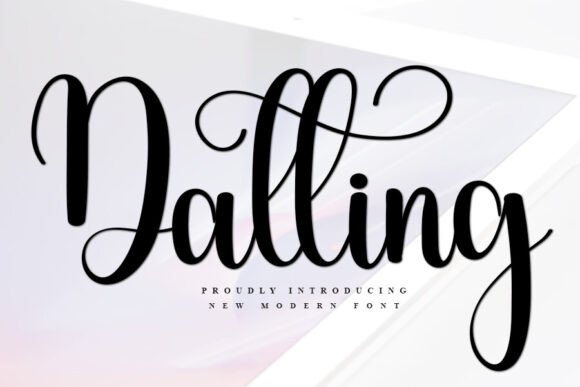
Datting Font: Elevate Your Designs with a Refreshingly Modern Aesthetic
In the realm of design, typography plays a pivotal role in conveying messages, evoking emotions, and creating lasting impressions. The right font can elevate your design from ordinary to extraordinary, making it essential to choose a typeface that not only resonates with your brand’s identity but also captivates your audience. Introducing Datting, a refreshingly modern and aesthetically pleasing font designed to meet a wide array of design requirements. Whether you’re creating YouTube banners, logo mock-up covers, wedding invitations, professional ID cards, impactful flyers, or engaging in creative crafts, Datting emerges as your go-to choice.
The Versatility of Datting Font
Datting is not just another font; it’s a design companion that brings versatility to the table. Its clean lines, elegant curves, and modern appeal make it an ideal choice for various applications. Here are some of the areas where Datting truly shines:
- YouTube Banners: Stand out in the crowded YouTube space with a banner that exudes professionalism and creativity. Datting helps you create a strong first impression, drawing viewers into your content.
- Logo Mock-up Covers: A logo is often the first thing people notice about a brand. With Datting, you can craft logos that are not only visually appealing but also convey the essence of your brand.
- Wedding Invitations: Make your wedding invitations unforgettable with Datting’s elegant and sophisticated feel. It’s perfect for creating idyllic and romantic announcements.
- Professional ID Cards: For businesses and organizations, ID cards are essential for identification and security. Datting offers a professional look that enhances the credibility of your ID cards.
- Impactful Flyers: Whether you’re promoting an event, a product, or a service, Datting helps you create flyers that capture attention and drive engagement.
- Creative Crafts: For crafters and DIY enthusiasts, Datting provides a modern touch to handmade projects, making them stand out.
Aesthetic Upgrade and Business Progression
In today’s competitive market, aesthetics play a crucial role in brand differentiation and progression. Datting is more than just a font; it’s a tool for business growth. By incorporating Datting into your designs, you’re not only enhancing their visual appeal but also paving the way for:
- Enhanced Brand Recognition: Consistent and appealing visual branding helps in building a strong brand identity, making your business more recognizable to your target audience.
- Increased Engagement: Designs made with Datting are not only pleasing to the eye but also engaging, encouraging your audience to interact more with your content.
- Professionalism: The modern and clean look of Datting adds a layer of professionalism to your designs, which is crucial for attracting and retaining clients.
- Competitive Edge: In a sea of generic and outdated fonts, Datting gives you a unique edge, setting your designs apart from the competition.
The Simplicity and Exclusivity of Datting
What sets Datting apart from other fonts is its simplicity and exclusivity. In an era where complexity often overshadows elegance, Datting strikes the perfect balance:
- Simplicity: Datting’s clean and straightforward design makes it incredibly versatile and easy to use across various platforms and applications.
- Exclusivity: With Datting, you get a unique typographic experience that injects a fresh flair into every conceptual design. Its distinctiveness ensures your work stands out, avoiding the generic look that common fonts often result in.
Datting is more than just a font; it’s a design revolution. Its modern aesthetic, versatility, and exclusivity make it an indispensable tool for designers and businesses looking to elevate their brand and create impactful designs. Whether you’re aiming for aesthetic upgrades, business progression, or simply looking for a font that brings a unique touch to your creative projects, Datting is the perfect choice. Embrace Datting today and transform your designs with its refreshingly modern appeal.
- What makes Datting suitable for various design projects?
- Datting’s versatility, clean lines, and modern appeal make it suitable for a wide range of projects, from digital applications like YouTube banners to print materials such as flyers and wedding invitations.
- Is Datting easy to read?
- Absolutely. One of the key features of Datting is its readability. Its clean and simple design ensures that it remains legible across various sizes and applications.